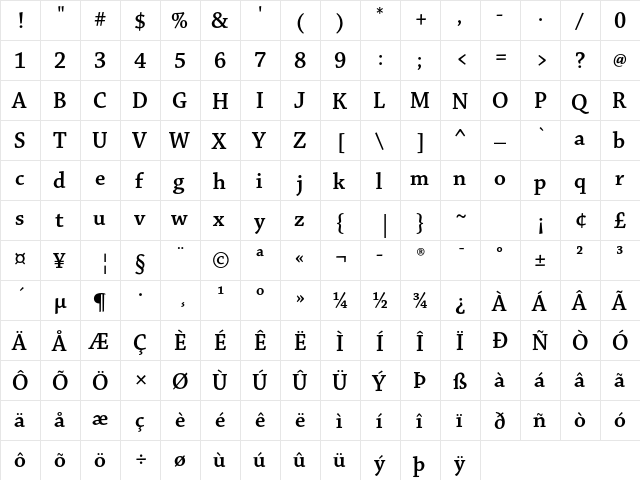
Chaparral Pro Semibold Subhead
| Designer | Carol Twombly |
Design Context for Chaparral Pro Typeface
Chaparral Pro offers clean, dependable letterforms without strong stylistic allegiance, making it a practical choice for designers who need flexibility. Its bold stroke weight gives it real presence on the page.
Pro Tip: Pair Chaparral Pro with a font of contrasting weight or personality to build a more expressive typographic hierarchy.